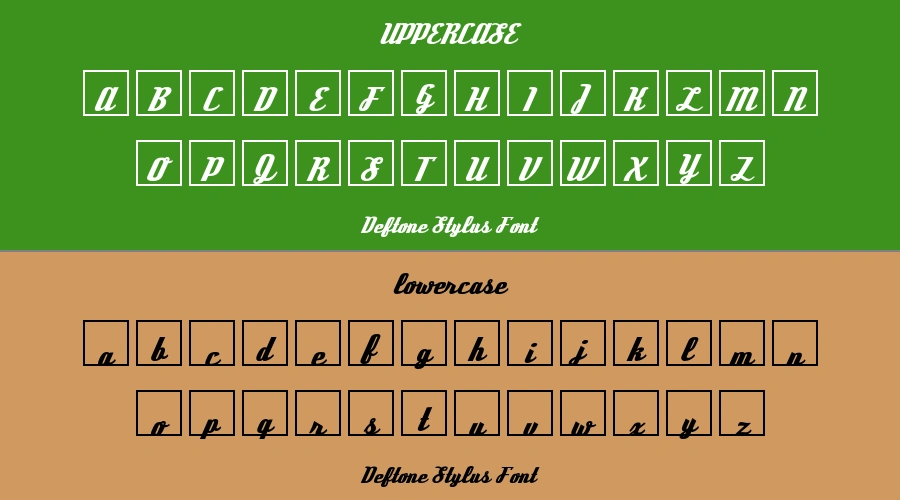
About Deftone Stylus Font
Deftone Stylus Font embodies typographic excellence through its masterful combination of straight stems and clarity. Created for social media content, this typeface delivers exceptional sophistication and classic beauty across all applications. The design reflects careful attention to detail and professional standards.
Advanced capabilities include distinctive teardrop terminals and versatile contextual alternates, giving designers creative control. When used in exhibition materials, Deftone Stylus Font exhibits remarkable body text reading. The harmonious balance between stroke contrast and regulatory compliance sets this typeface apart.